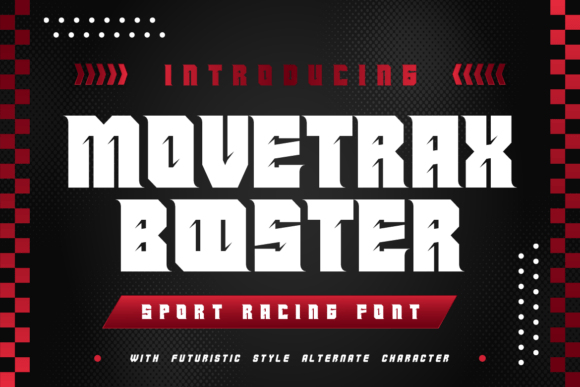
Movetrax Booster Font for Creative Projects
Movetrax Booster is a Display font that brings high-energy style to any craft or product design. Its bold, angular strokes and aggressive geometric cut make it ideal for projects where visual impact matters most. Whether you're creating handmade labels, printable art, or custom merchandise, Movetrax Booster adds a dynamic edge that commands attention.
Movetrax Booster for Handmade Labels and Product Tags
Movetrax Booster is a powerful choice for handmade labels and product tags that need to stand out. The font’s sharp angles and strong presence make it perfect for candle labels, soap tags, or DIY gift tags. When paired with a clean background, it ensures readability while maintaining a striking aesthetic. For small stickers or printed cards, consider using the font at larger sizes to maintain clarity without sacrificing its aggressive look.
Movetrax Booster for Wedding Invitations and Elegant Branding
While Movetrax Booster may seem too intense for traditional weddings, its boldness can be harnessed for modern, edgy wedding designs. Use it for titles, headings, or decorative elements on invitations, save-the-dates, or welcome signs. Pair it with a soft script font or a serif typeface to balance the intensity and create a cohesive brand identity. This font works well for rustic barn weddings, urban venues, or any theme that embraces a contemporary twist.
Movetrax Booster for Seasonal Craft Designs and Holiday Packaging
Movetrax Booster shines in seasonal craft projects, especially during holidays like Christmas, Halloween, or New Year's. Use it for holiday packaging, ornament labels, or festive signs. Its aggressive geometry gives a sense of movement and energy, making it ideal for themes like "Winter Rush" or "Festive Frenzy." When designing for small spaces, such as gift boxes or greeting cards, ensure the font is large enough to remain legible without losing its visual punch.
Movetrax Booster for Digital Printables and SVG Designs
As a Display font, Movetrax Booster is excellent for digital printables and SVG-style designs. Whether you're creating printable wall art, planner pages, or social media graphics, this font adds a bold, professional touch. Its geometric structure makes it easy to work with in design software, ensuring crisp edges and clean lines. For printable templates, use it for headings, titles, or key phrases to draw the eye and enhance the overall design.
Movetrax Booster for Custom Merchandise and Apparel
Movetrax Booster is a top pick for custom merchandise like t-shirts, mugs, tote bags, and phone cases. Its strong visual presence makes it ideal for logos, slogans, or taglines that need to grab attention. When designing for apparel, keep the text short and centered to maintain balance. The font pairs well with minimalist backgrounds or solid colors, allowing it to take center stage. For commercial use, ensure your license covers the intended application, whether it's for personal projects or selling physical products.
Movetrax Booster for Farmhouse Signs and Wall Art
Farmhouse signs and wall art benefit from the bold, geometric style of Movetrax Booster. Use it for quotes, names, or decorative wording on wooden signs, canvas prints, or metal plaques. The font’s angular strokes add a modern, industrial feel that complements rustic or contemporary decor. When creating wall art, experiment with different color combinations to highlight the font’s sharp lines and dynamic shape.
Movetrax Booster for Event Signage and Welcome Boards
Movetrax Booster is an excellent choice for event signage, including weddings, conferences, or pop-up shops. Its readability at a distance makes it ideal for welcome boards, directional signs, or event banners. Combine it with a complementary font for secondary text to maintain visual harmony. For outdoor use, ensure the font size is large enough to be seen clearly from a distance, and choose weather-resistant materials if needed.
Movetrax Booster for Boutique Branding and Packaging Design
Boutique brands looking to stand out can use Movetrax Booster for packaging design, logo creation, or branding materials. Its aggressive style conveys energy and innovation, making it suitable for niche markets like fitness, automotive, or tech-related products. When designing for packaging, pair it with a simple sans serif or serif font for contrast. This combination creates a professional yet bold look that resonates with target audiences.
Movetrax Booster for Cricut and Silhouette Projects
Cricut and Silhouette users will appreciate how Movetrax Booster performs in cutting machines. Its clean, geometric structure ensures precise cuts and minimal issues with overlapping strokes. Use it for vinyl lettering, sticker designs, or custom signs. For best results, test the font at different sizes before cutting, and adjust spacing as needed to maintain clarity and visual appeal.